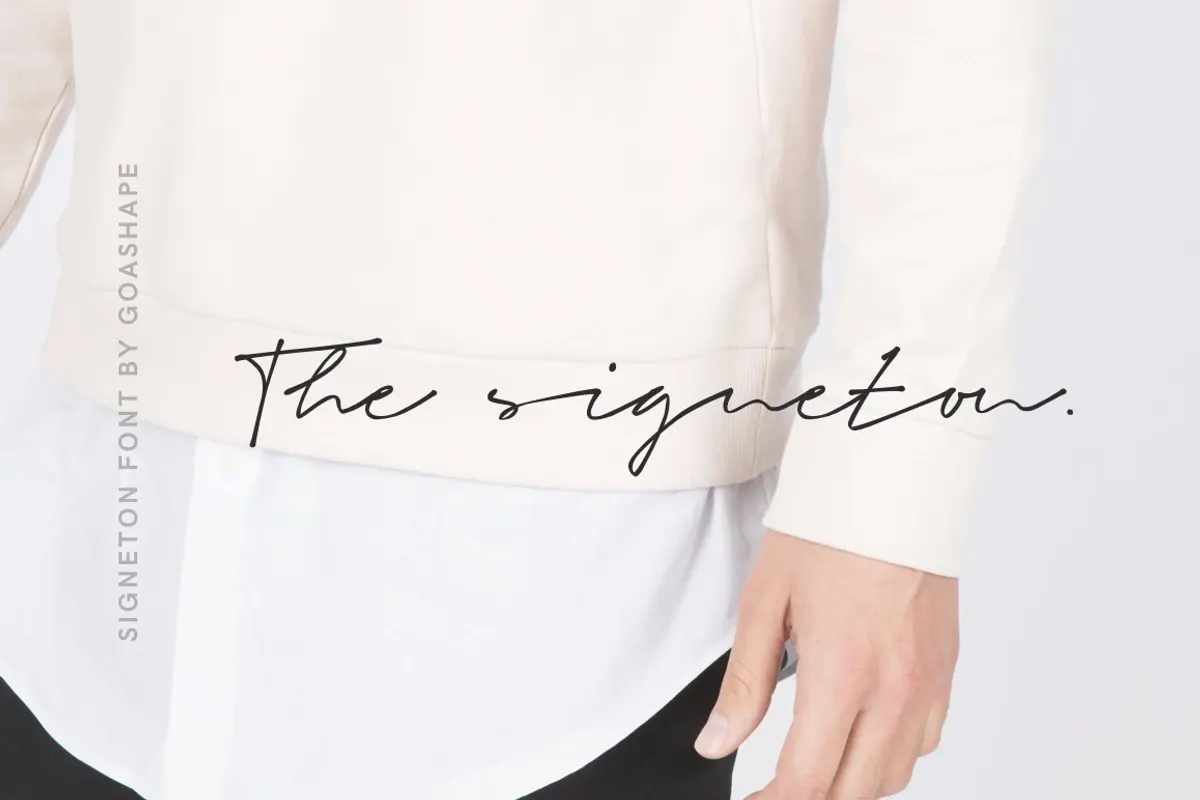
Signeton Signature Font Free Download
You must purchase this font for commercial use. However, you can download it for free to test its elegant, handwritten style. Signeton Signature Font Free Download delivers a sophisticated, authentic signature look perfect for branding, personal logos, wedding invitations, stationery, social media posts, and premium packaging designs. Its delicate strokes, fluid movement, and natural handwriting emulate real signatures, creating a sense of elegance and personalized charm. Designers seeking to add luxury, uniqueness, and professionalism to their projects will find Signeton an ideal choice. Whether crafting visually appealing marketing materials or designing sophisticated digital graphics, this signature font beautifully captures attention and enhances the aesthetic value of your creations. Signeton Signature Font Free Download effortlessly combines readability with refined artistic expression, elevating your designs to stand out among competitors. Download Signeton Signature Font today and discover how its classy yet contemporary style can transform your next creative project with a distinctively personal touch.